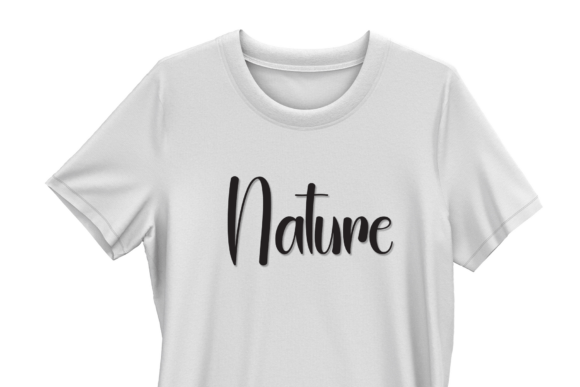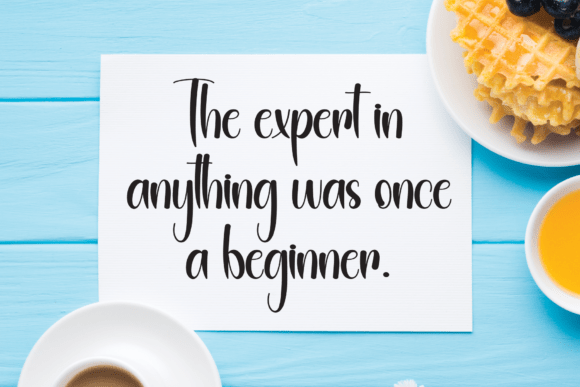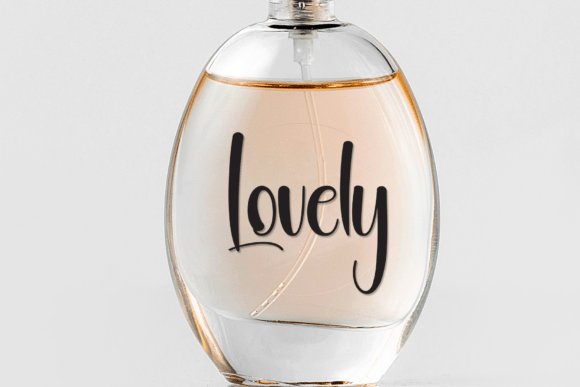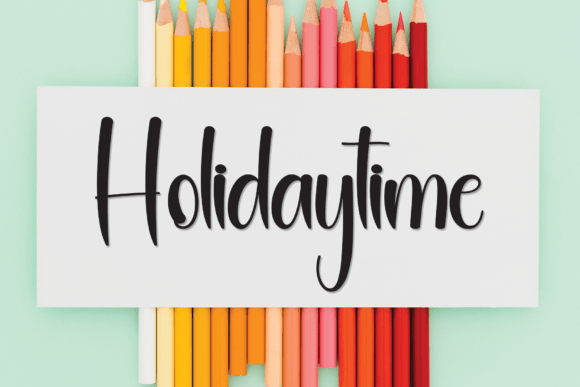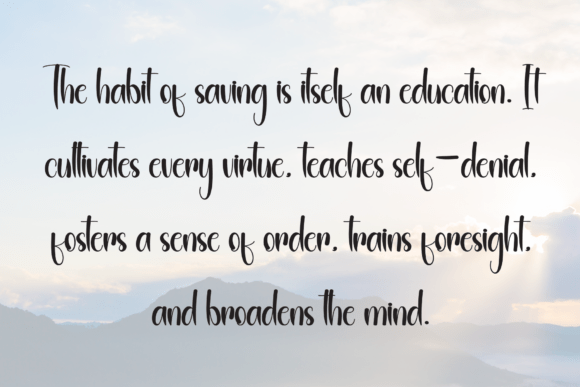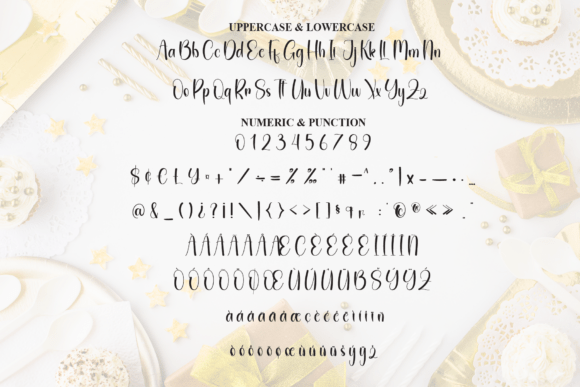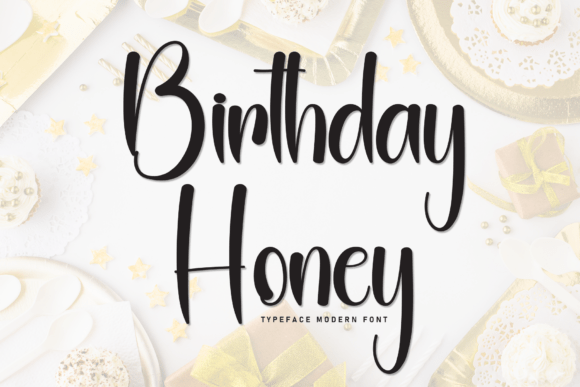
Introducing Birthday Honey Font: The Sweetest Addition to Your Design Collection
Are you tired of using the same old fonts for your designs? Do you want to add a touch of whimsy and playfulness to your creations? Look no further than the Birthday Honey Font, a charmingly handwritten font that exudes sweetness and friendliness. This delightful font is perfect for designers and crafters who want to add a personal touch to their work, making it ideal for nuptial invitations, heartfelt cards, and any design endeavor seeking a zest of delight.
The Charm of Birthday Honey Font
The Birthday Honey Font is a unique and enchanting script that effortlessly infuses fun into your design. Its lovable allure makes every creative piece feel more personal and inviting, perfect for designers who want to create a lasting impression. Whether you’re working on a wedding invitation, a greeting card, or a social media graphic, this font adds a playful touch that will make your design stand out from the crowd.
The Birthday Honey Font is versatile and can be used for a wide range of design projects. Here are some ideas to get you started:
• Wedding Invitations: Add a touch of romance and whimsy to your wedding invitations with this delightful font. It’s perfect for creating beautiful and unique wedding stationery.
• Greeting Cards: Make your greeting cards more personal and special with the Birthday Honey Font. It’s ideal for birthdays, anniversaries, and other celebrations.
• Social Media Graphics: Add a playful touch to your social media graphics with this font. It’s perfect for creating engaging and eye-catching posts that will make your audience smile.
• Branding and Packaging: Use the Birthday Honey Font to create a unique and memorable brand identity. It’s perfect for businesses that want to convey a sense of friendliness and approachability.
Key Features of Birthday Honey Font
The Birthday Honey Font has several key features that make it a must-have for designers and crafters:
• Handwritten Script: The font features a charmingly handwritten script that exudes sweetness and friendliness.
• Whimsical and Playful: The font has a whimsical and playful feel that’s perfect for adding a touch of delight to your designs.
• Easy to Read: The font is easy to read, making it perfect for use in a variety of design projects.
• Scalable: The font is scalable, making it perfect for use in both print and digital designs.
Tips for Using Birthday Honey Font
Here are some tips for using the Birthday Honey Font in your designs:
• Pair with Other Fonts: Pair the Birthday Honey Font with other fonts to create a unique and interesting contrast.
• Use in Combination with Images: Use the font in combination with images to create a visually appealing design.
• Experiment with Colors: Experiment with different colors to find the perfect combination that complements the font.
The Birthday Honey Font is a charmingly handwritten font that exudes sweetness and friendliness. Its lovable allure makes every creative piece feel more personal and inviting, perfect for designers who want to create a lasting impression. With its versatility and playful feel, this font is perfect for a wide range of design projects. So why not give it a try and see how it can add a touch of delight to your designs?